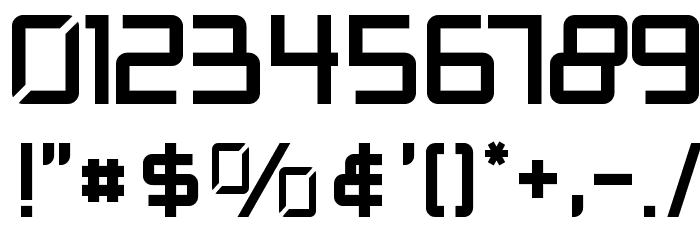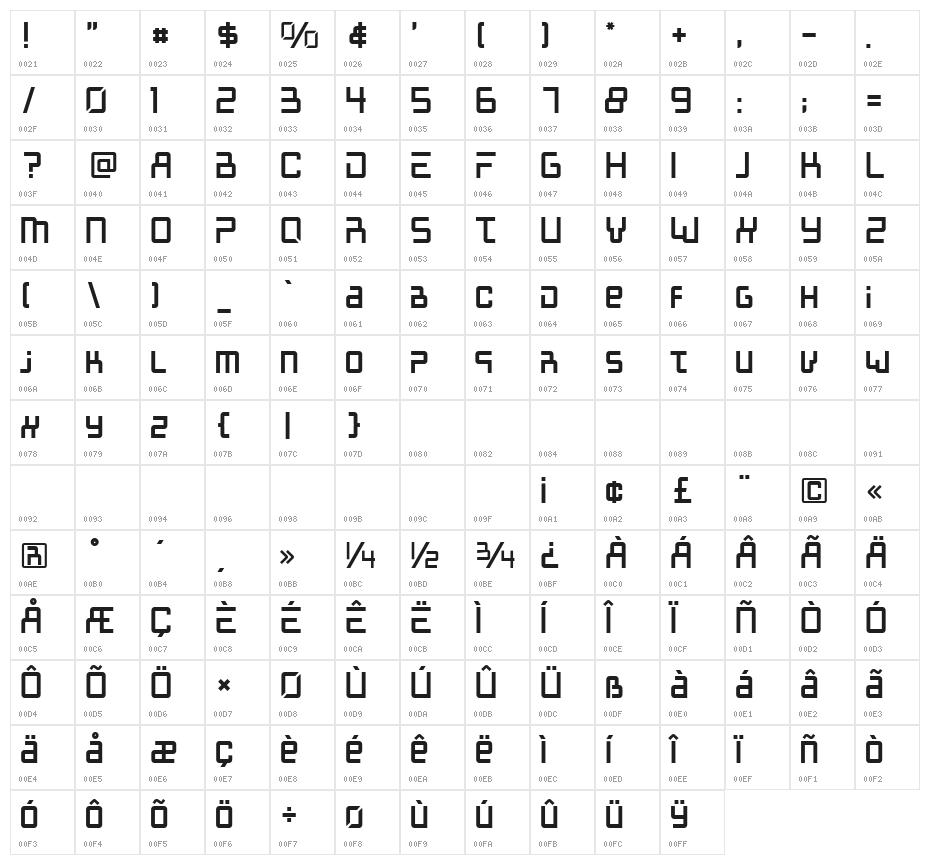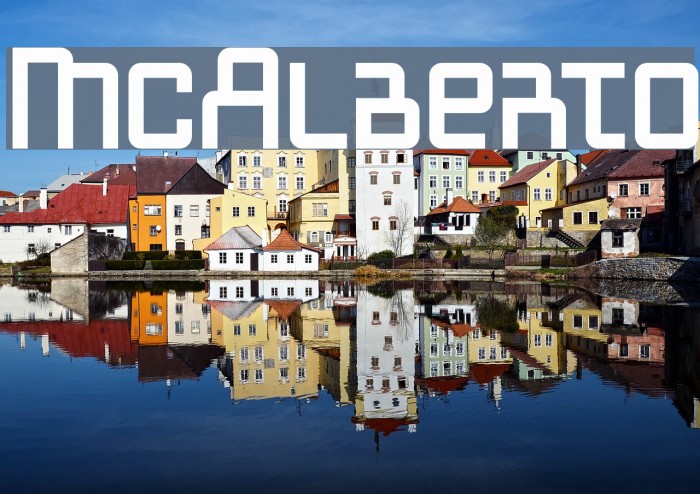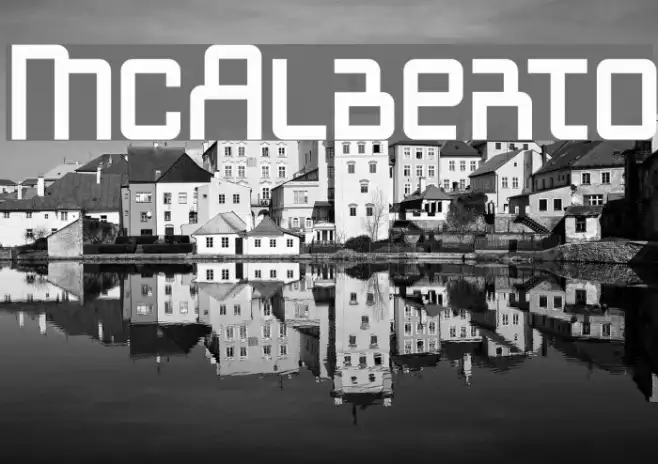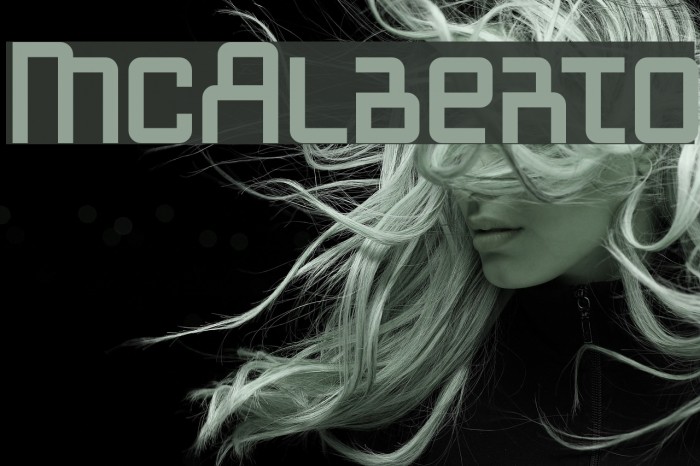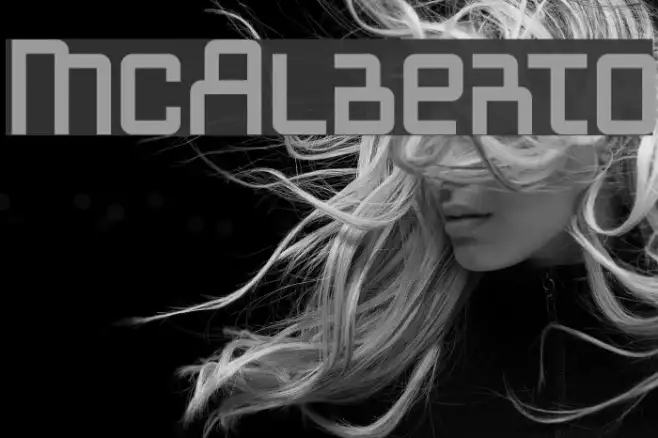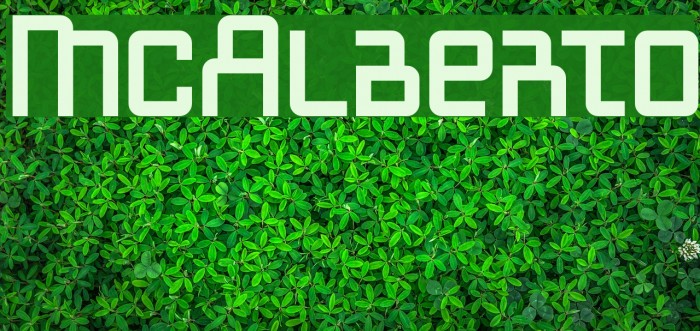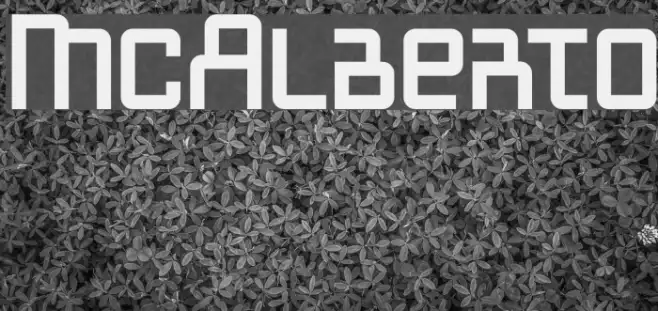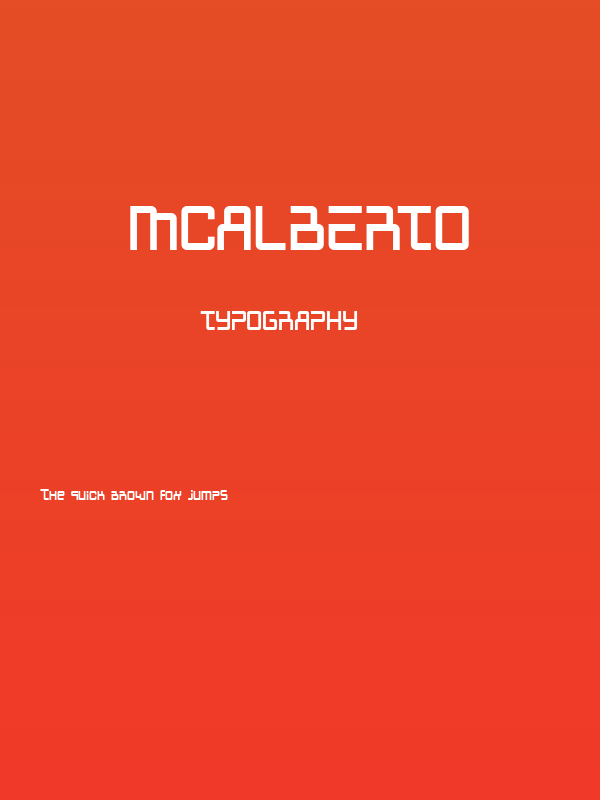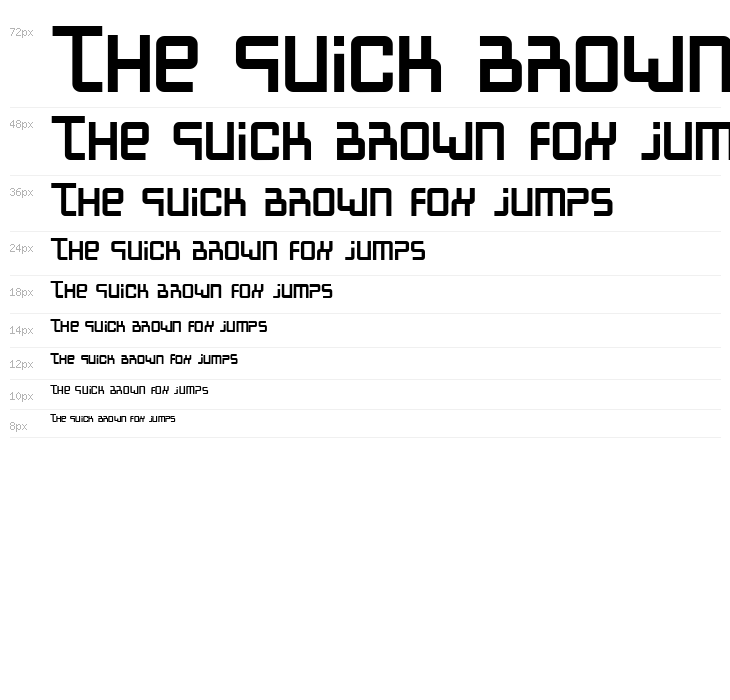
McAlberto Font
McAlberto Description
This font features a bold, geometric design with a modern and futuristic appeal. The characters are constructed with clean, straight lines and sharp angles, giving it a technical and structured appearance. The uppercase and lowercase letters maintain a consistent style, with the lowercase mirroring the uppercase in form but with reduced height. Numbers and special characters follow the same geometric pattern, ensuring uniformity across all glyphs. The font's design is highly legible, making it suitable for both digital and print media. Its distinct style is ideal for projects that require a contemporary and edgy look.
| Proposed Projects | Ideal for technology branding, video game titles, sci-fi movie posters, and modern web design. |